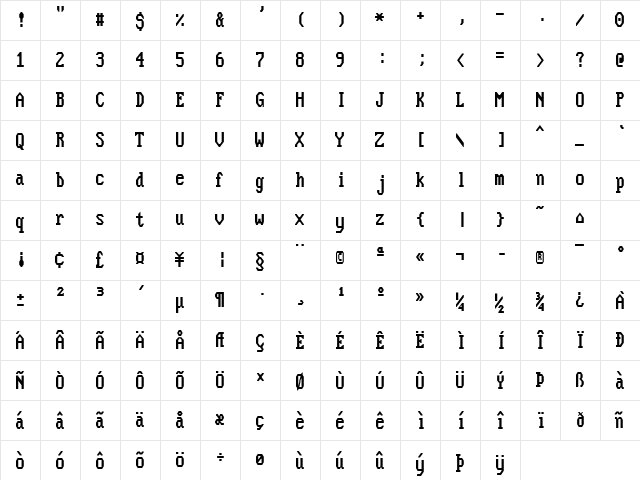
Nouveau IBM Stretch Medium
Design Context for Nouveau IBM Stretch Typeface
Nouveau IBM Stretch offers clean, dependable letterforms without strong stylistic allegiance, making it a practical choice for designers who need flexibility.